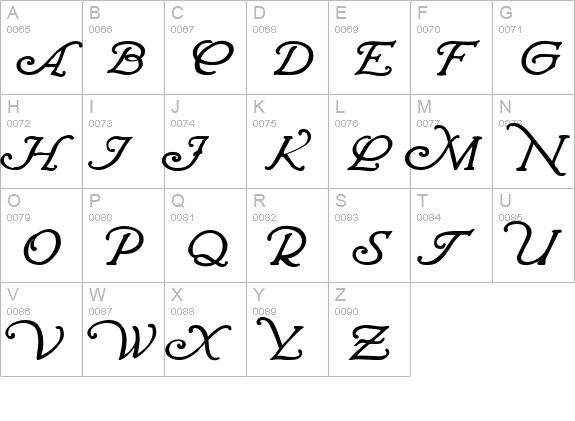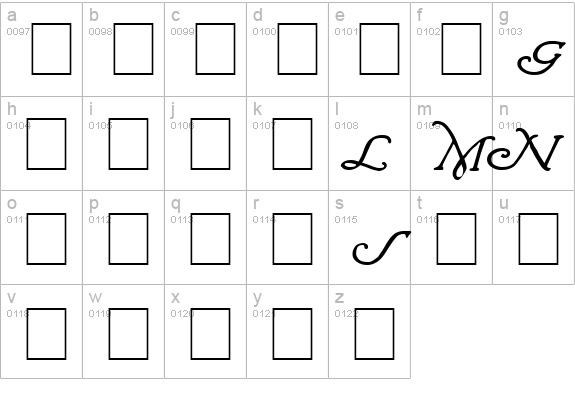
Wrenn Initials Bold is a strong, high-contrast variant in the Wrenn typeface family \xE2\x80\x94 well suited to headlines, attention-grabbing titles, and strong calls-to-action.